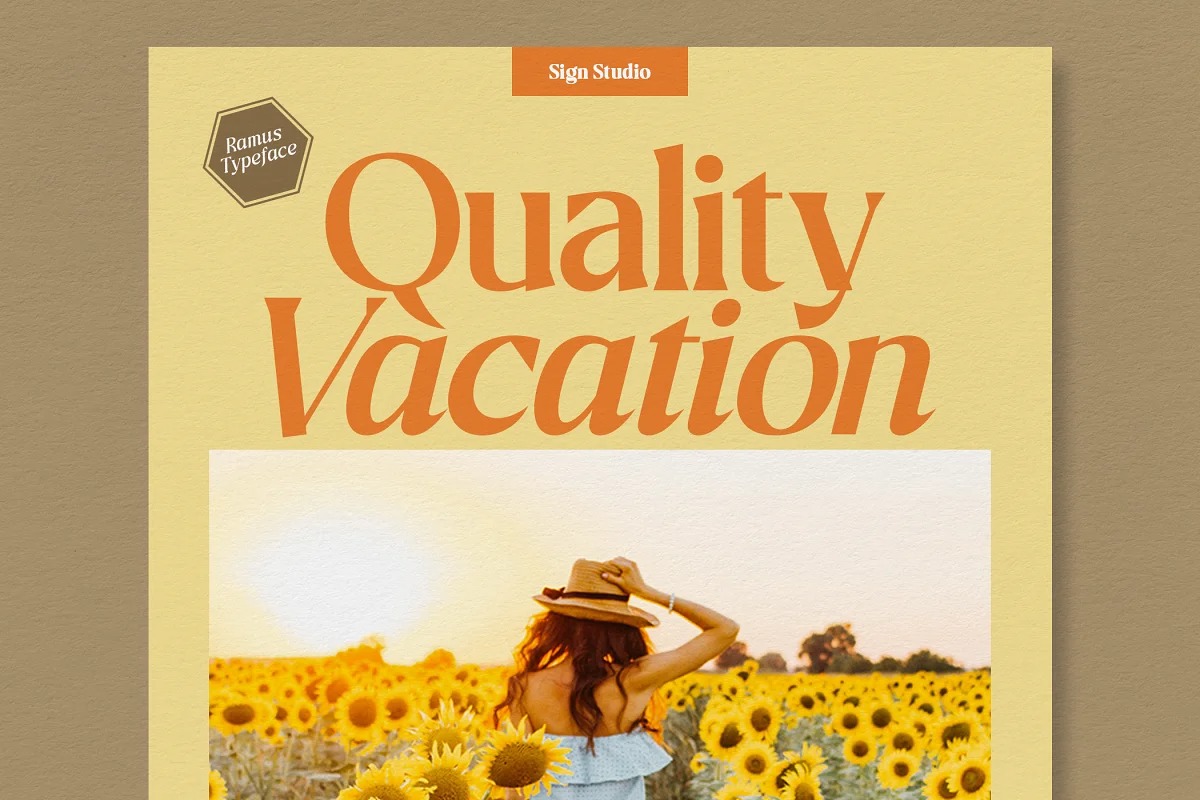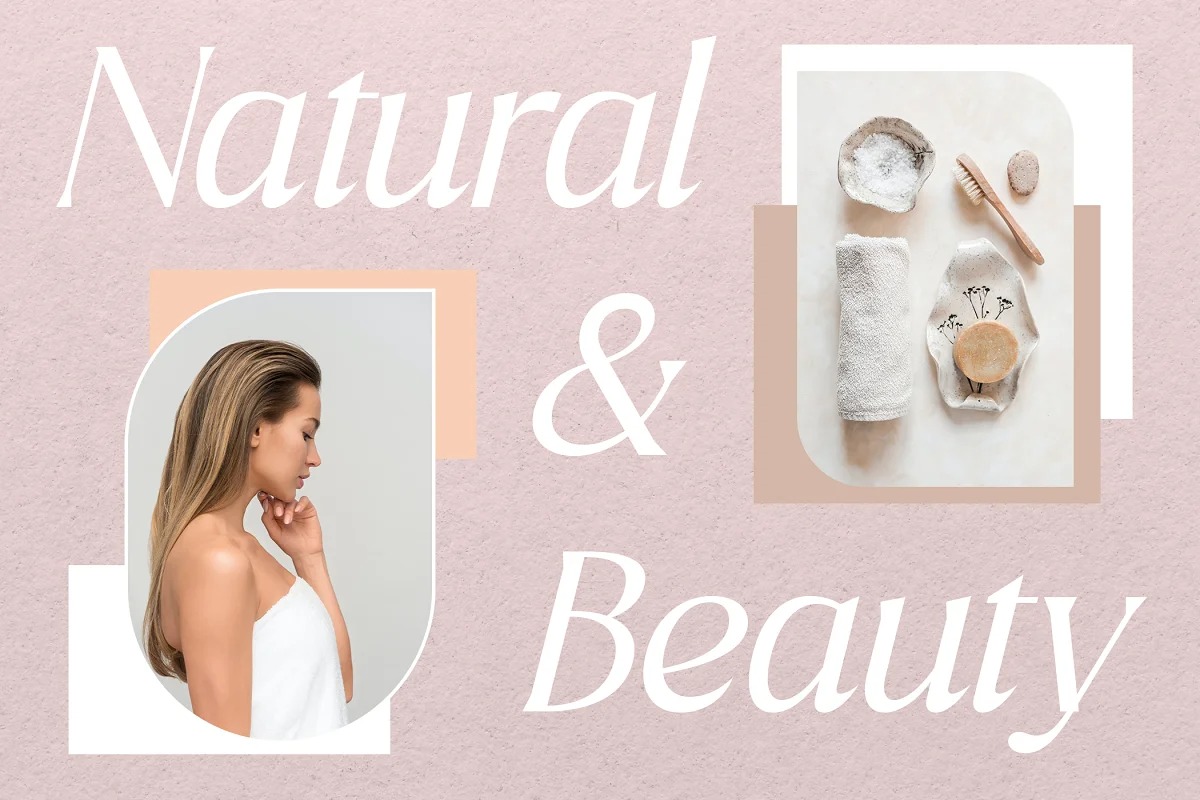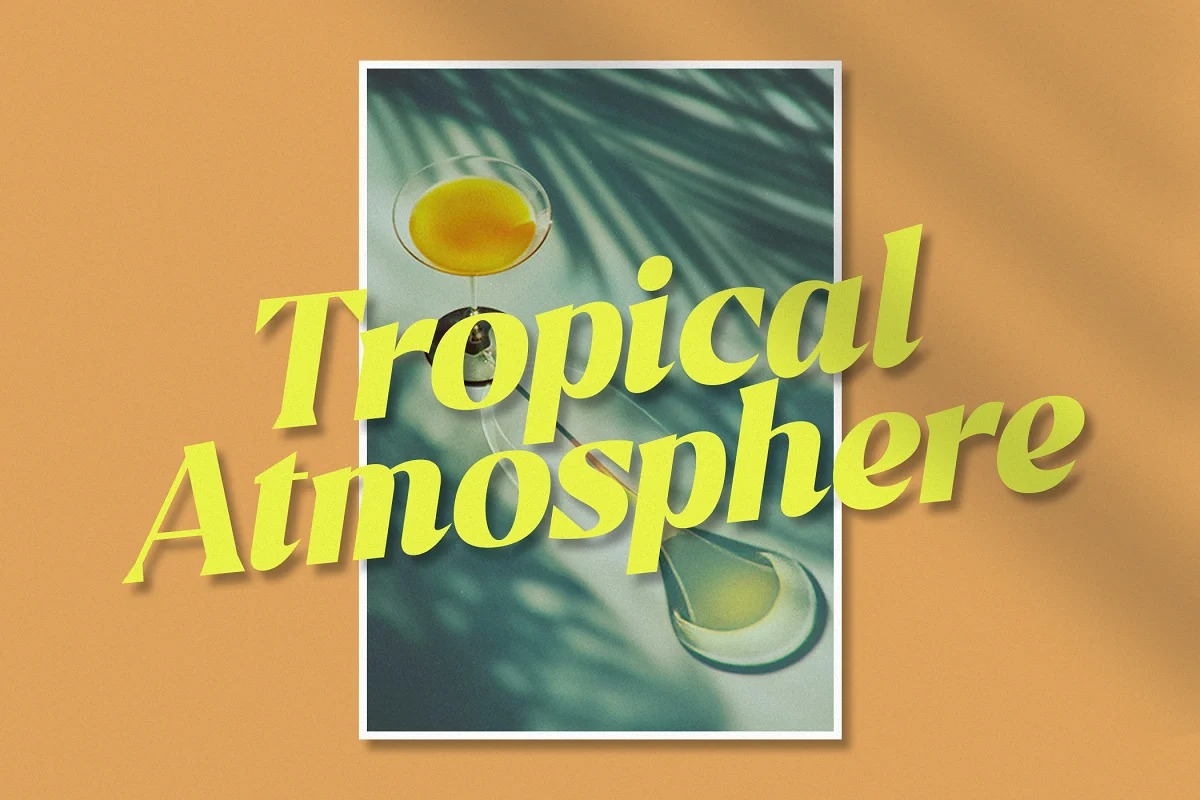
Ramus Font Family
Ramus Serif Font
It’s a serif font with a stylish, classic feel is ready to work with your design projects. The typeface comes with 5 weight in both regular and italic styles. Ramus is the result of exploring minimalist design trends and classic typography. Have the ability to be a display font and writing text well. Ramus from the serif family is a very versatile font suitable for headlines, posters, logotypes, etc.